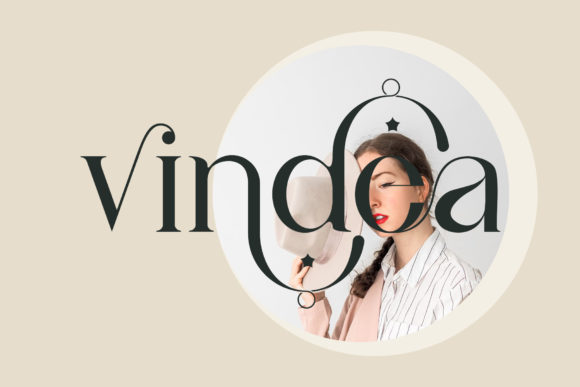
Step into the realm of elegance with Vindea Font, a captivating serif font family meticulously handcrafted by humaira_std to fulfill your design aspirations. Vindea's intricate curves and delicate strokes dance before your eyes, creating a mesmerizing symphony of visual harmony. Unleash the beauty of your words with Vindea, and prepare to be captivated by its exquisite charm.
Vindea's versatility extends beyond its undeniable aesthetic appeal. Effortlessly blend it with various design styles and watch it seamlessly elevate your projects to new heights. Vindea effortlessly enhances logos, branding, invitations, and any creative concept that demands a touch of timeless sophistication.
Unlock the full potential of Vindea with its PUA encoding, granting you effortless access to an enchanting array of glyphs and swashes. Unleash your imagination and explore boundless creative possibilities, crafting designs that radiate uniqueness and leave an unforgettable impression.
Don't settle for ordinary fonts that blend into the background. Embrace Vindea, a font that commands attention and sets your projects apart. Its ability to transform the mundane into the extraordinary will ignite your passion for design and redefine your creative boundaries.
Experience the allure of Vindea today, and embark on a journey of creative exploration. With its captivating beauty and versatile nature, Vindea promises to elevate your designs to new heights, leaving a lasting impression on your audience. Dive into a world of elegance and distinction with Vindea, the font that ignites your imagination and captivates hearts.